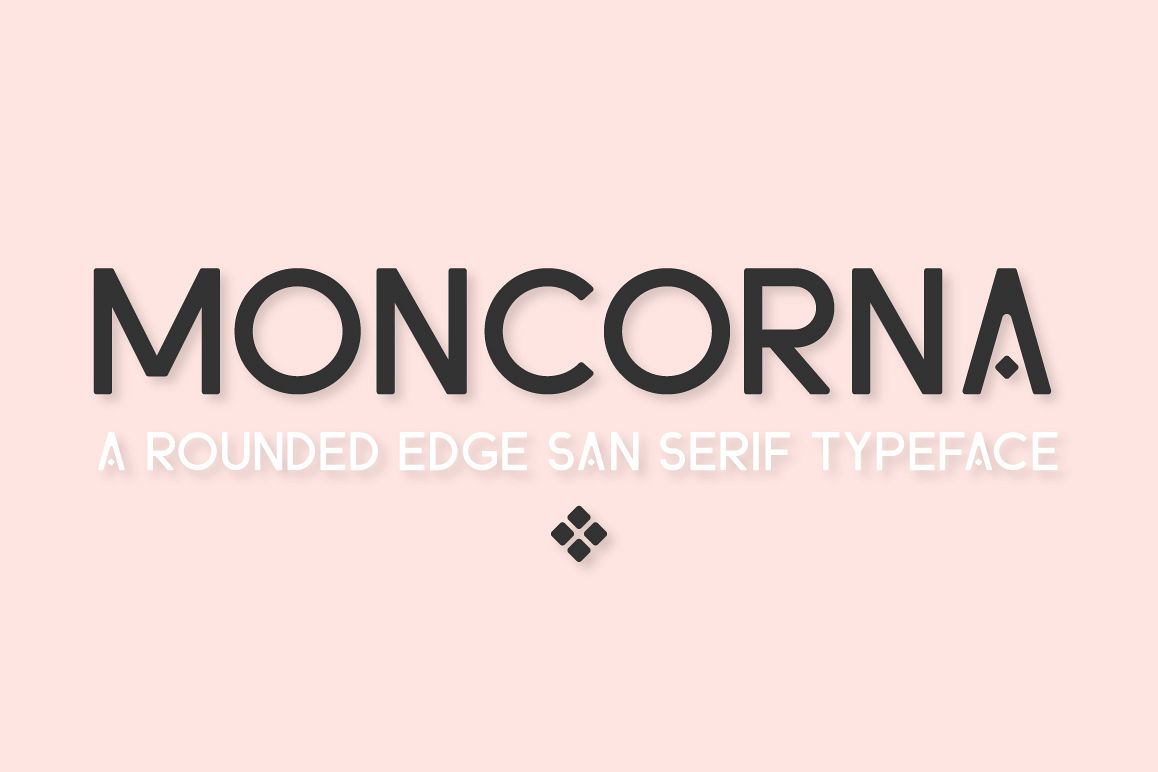
Moncorna Futuristic Sans Serif Font
Moncorna is a rounded edge
sans serif typeface give off a relaxed, good vibe and clean. It was designed based on circle, line and geometric shape.
Moncorna come in standard English characters(A-Z, a-z), numbers(0-9) and 30 Symbol&Punctuations